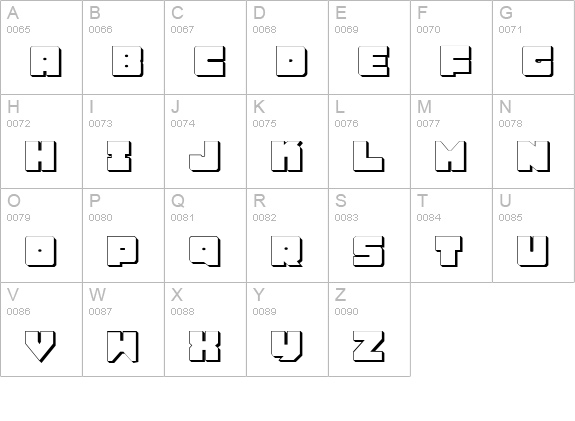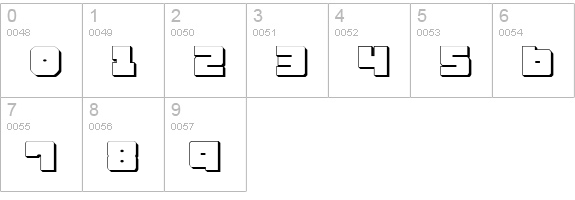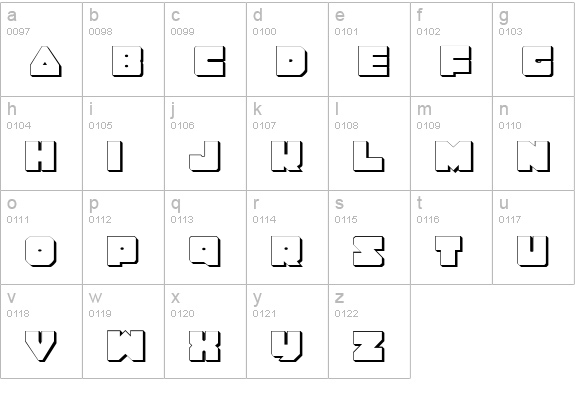
Introducing the captivating and dynamic Lobo Tommy 3D font! This innovative typeface exudes a three-dimensional effect that adds depth and personality to any design project. With its bold and eye-catching appearance, Lobo Tommy 3D font is perfect for making a statement and standing out from the crowd. What's even better is that this fantastic font is available for free download at FontsMarket.com. Yes, you read that right - you can get your hands on this striking typeface without spending a dime! Whether you're working on graphic design, branding, posters, or any other creative endeavor, Lobo Tommy 3D font is sure to elevate your work and leave a lasting impression. Don't miss out on this amazing opportunity to enhance your designs with the Lobo Tommy 3D font. Download it for free today and unleash your creativity like never before!